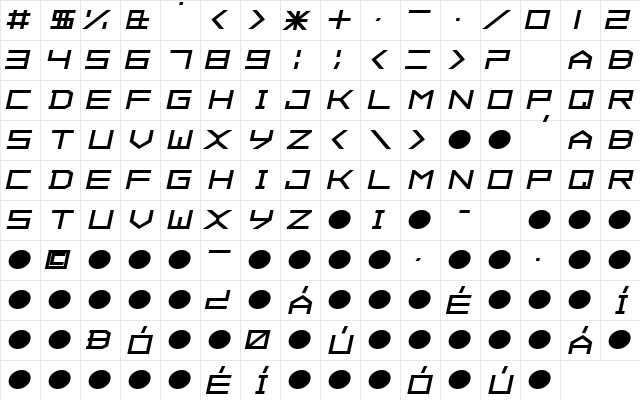
ALPHA BoldItalic
Design Context for ALPHA Typeface
ALPHA is a composed and adaptable typeface that performs quietly and consistently across a wide range of design contexts. The dynamic lean of this cut emphasises speed and emphasis in any layout. The heavy weight commands attention and anchors typographic hierarchies.
Pro Tip: Try ALPHA for annotation and caption copy alongside an upright companion — the contrast in angle creates a dynamic but ordered typographic system.